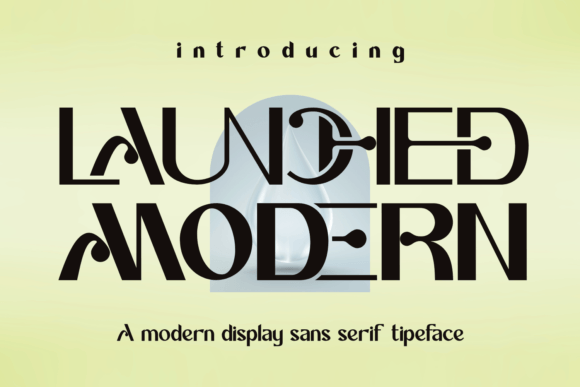
Launched Modern Font: Elevating Design with Bold Elegance and Modern Flair
In the ever-evolving world of design, typography plays a pivotal role in conveying messages, evoking emotions, and creating lasting impressions. Among the myriad of fonts available to designers, Launched Modern Font stands out as a beacon of creativity, embodying bold elegance and a touch of modern flair. This sans-serif typeface is not just a font; it’s an experience, designed to capture attention and leave a lasting impact across various design projects.
What is Launched Modern Font?
Launched Modern Font is a contemporary sans-serif typeface that blends the simplicity of modern design with the sophistication of elegant typography. Its clean lines, precise curves, and versatile design make it an ideal choice for a wide range of applications, from branding and advertising to digital media and print.
The font’s design is characterized by its geometric precision, making it highly legible even at smaller sizes. This feature, combined with its bold and elegant appearance, sets Launched Modern Font apart from more traditional typefaces and makes it a valuable asset for designers looking to elevate their projects.
Key Features of Launched Modern Font
- Geometric Precision: Launched Modern Font boasts geometric shapes that provide a clean and modern look, making it perfect for designs that require a touch of sophistication.
- Versatility: The font’s versatility allows it to be used across various platforms and design projects, from digital interfaces to print materials.
- Elegance and Boldness: It combines elegance with a bold presence, ensuring that any design it is part of stands out and commands attention.
- High Legibility: Despite its elegant and bold appearance, Launched Modern Font maintains high legibility, making it suitable for use in a variety of contexts.
Applications of Launched Modern Font
The versatility of Launched Modern Font makes it suitable for a myriad of design applications. Here are some of the key areas where this font can make a significant impact:
- Branding: For companies looking to establish a modern and sophisticated brand identity, Launched Modern Font can be a valuable asset.
- Advertising: Its bold elegance makes it perfect for headlines and titles in advertisements, ensuring that the message not only grabs attention but also leaves a lasting impression.
- Digital Media: In the realm of digital media, including websites, mobile apps, and social media graphics, Launched Modern Font can enhance the visual appeal and user experience.
- Print Design: For print materials such as brochures, posters, and business cards, this font adds a touch of modern sophistication.
Benefits of Using Launched Modern Font
Choosing Launched Modern Font for design projects comes with several benefits:
- Uniqueness: It offers a unique blend of modernity and elegance, setting designs apart from the conventional.
- Flexibility: The font’s versatility means it can be used in a wide range of projects, making it a valuable addition to any designer’s toolkit.
- Professionalism: Its clean and precise design conveys professionalism, which is crucial for brands and businesses.
- Emotional Connection: The font’s elegant and bold appearance can evoke a strong emotional response, making designs more memorable.
Tips for Effectively Using Launched Modern Font
To maximize the impact of Launched Modern Font in design projects, consider the following tips:
- Pair with Complementary Fonts: When combining Launched Modern Font with other typefaces, choose fonts that complement its modern and elegant feel.
- Consider Context: Ensure that the use of Launched Modern Font aligns with the project’s tone and message.
- Play with Sizes and Weights: Experimenting with different sizes and weights of the font can add depth and hierarchy to designs.
- Maintain Readability: While Launched Modern Font is highly legible, ensure that it remains readable in various contexts, especially at smaller sizes.
Launched Modern Font is more than just a typeface; it’s a design statement that combines bold elegance with modern flair. Its versatility, geometric precision, and high legibility make it an invaluable asset for designers looking to create impactful and memorable designs. Whether for branding, advertising, digital media, or print, Launched Modern Font offers a fresh perspective and a sophisticated touch that can elevate any design project. By incorporating this font into their work, designers can ensure their creations stand out in a crowded design landscape and leave a lasting impression on their audience.
The Future of Typography with Launched Modern Font
As design continues to evolve, typography remains at the forefront of creative expression and communication. Launched Modern Font represents a step forward in this evolution, embodying the qualities that define contemporary design: elegance, boldness, and a deep connection to the digital age. Its introduction into the world of typography not only expands the palette of available fonts but also sets a new standard for what modern typefaces can achieve.
In embracing Launched Modern Font, designers are not just selecting a typeface; they are adopting a design philosophy that values clarity, creativity, and impact. As the design landscape continues to shift, one thing is clear: Launched Modern Font will be at the forefront, leading the way in typographic innovation and design excellence.